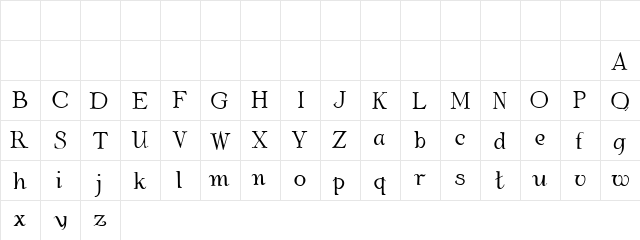
Albemarle Demo Regular
Design Context for Albemarle Demo Typeface
Albemarle Demo offers clean, dependable letterforms without strong stylistic allegiance, making it a practical choice for designers who need flexibility.